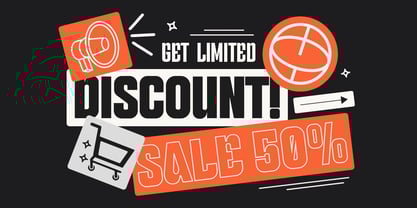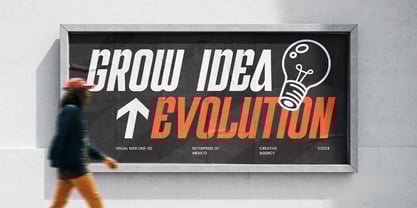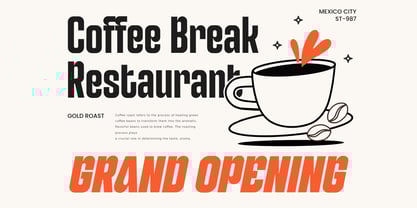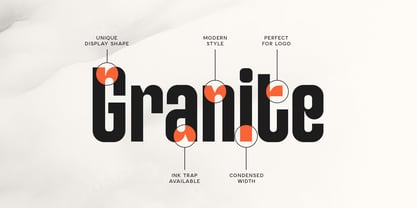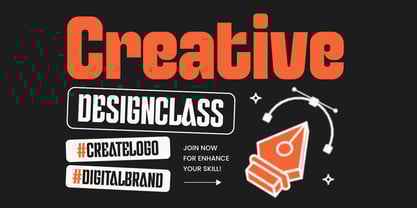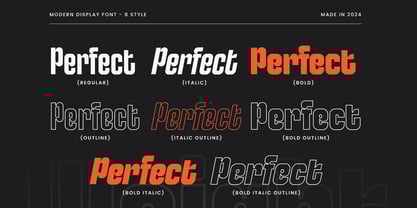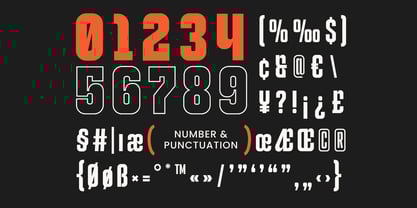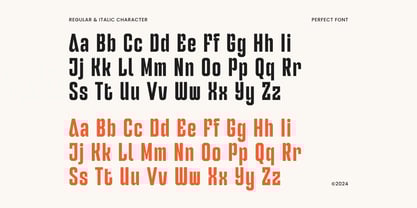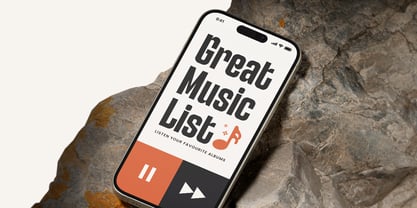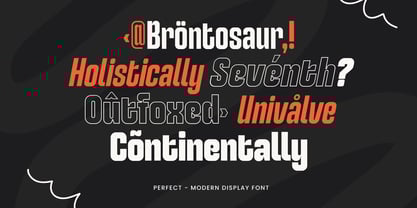
Perfect SS
by Sensatype Studio
The Perfect SS Font Family was designed by Zamroni Hamzah and published by Sensatype Studio. Perfect SS contains 8 styles and family package options. More about this family
Perfect - Modern Display Font Family
Perfect is a modern display font family crafted with sleek, clean lines to make your designs pop. Its bold and sophisticated style makes it ideal for branding, headlines, and digital projects where clarity and impact are key. Whether you're working on logos, posters, or websites, Perfect delivers an unmistakable modern flair.
This font strikes the right balance between simplicity and elegance, making it versatile for both creative and corporate projects. Its contemporary feel pairs well with minimalist designs, ensuring a strong visual presence without overwhelming your composition. Perfect is a great choice for designers looking to add a modern touch to their work, combining sleek aesthetics with functionality to captivate any audience.
Perfect Modern Display Font Features:
• Unique Characters Ready
• Punctuation, Number, and Symbol
• Uppercase and Lowercase
• Multilingual Support
• Opentype Features
Ready with 8 Font Styles:
• Regular
• Bold
• Italic
• Bold Italic
• Regular Outline
• Bold Outline
• Italic Outline
• Bold Italic Outline
Designers: Zamroni Hamzah
Foundry: Sensatype Studio